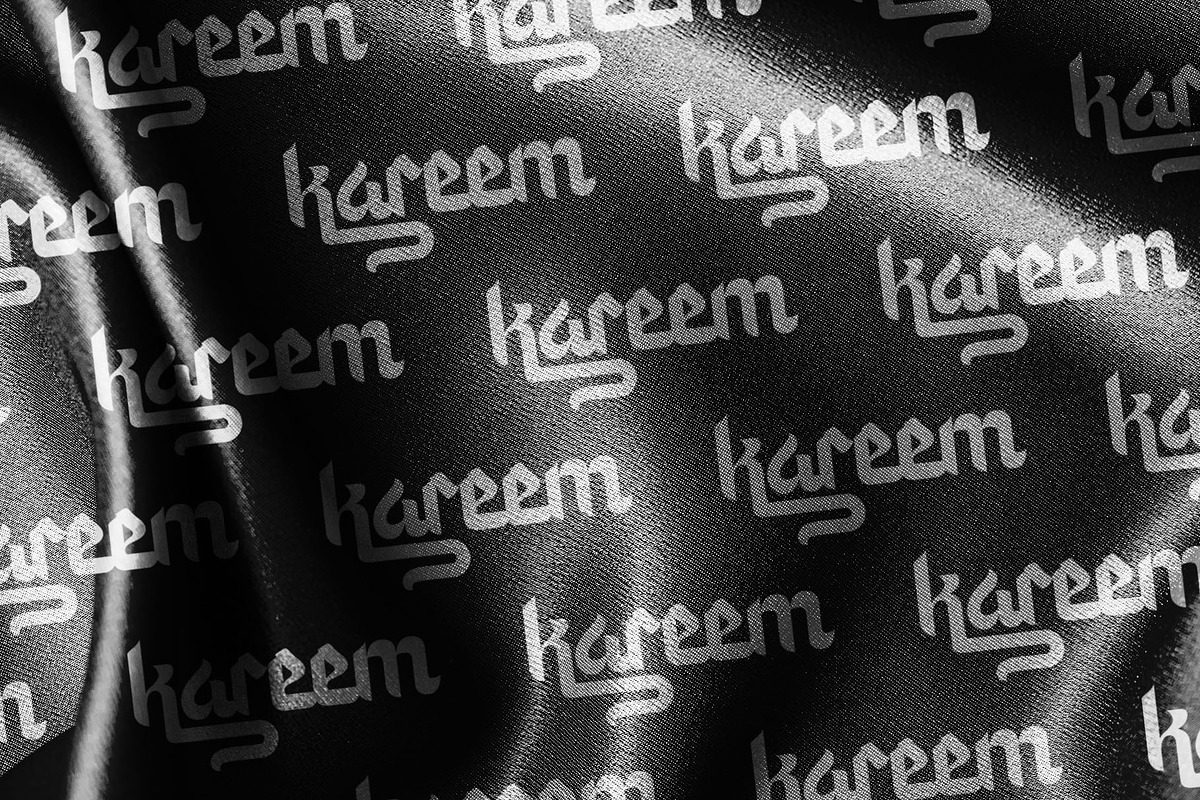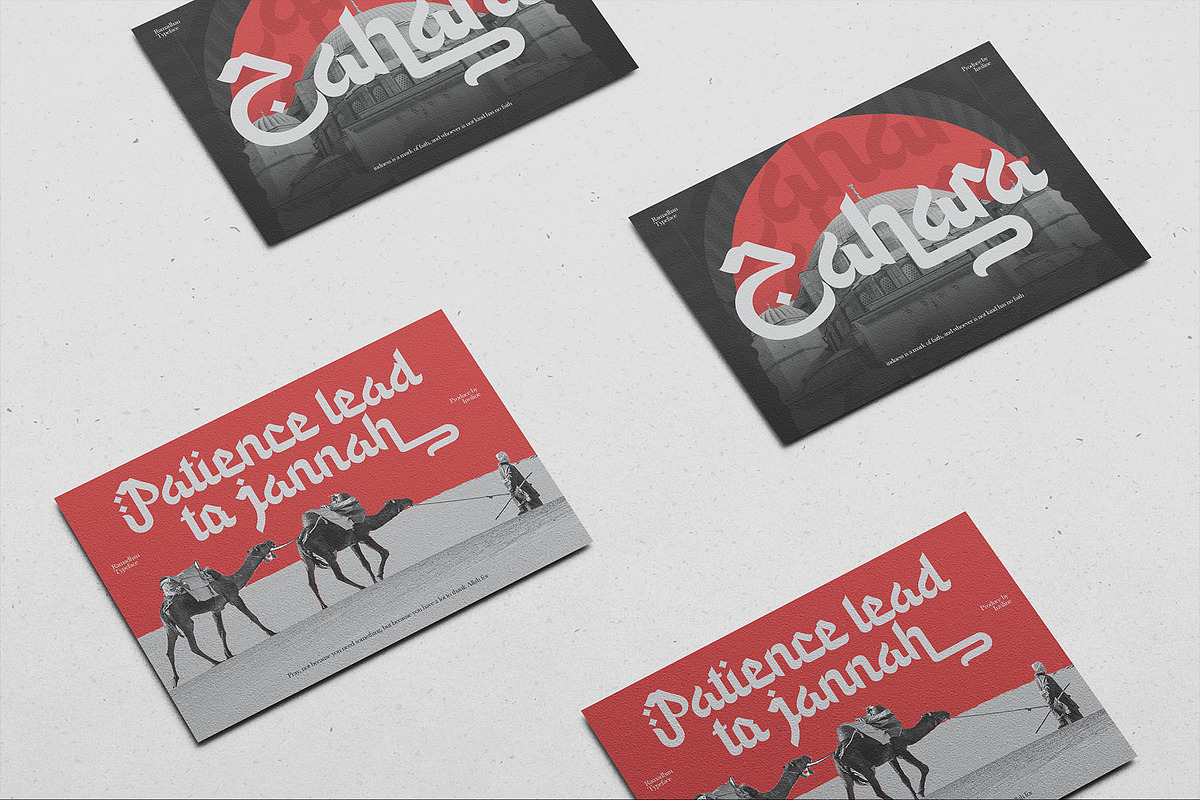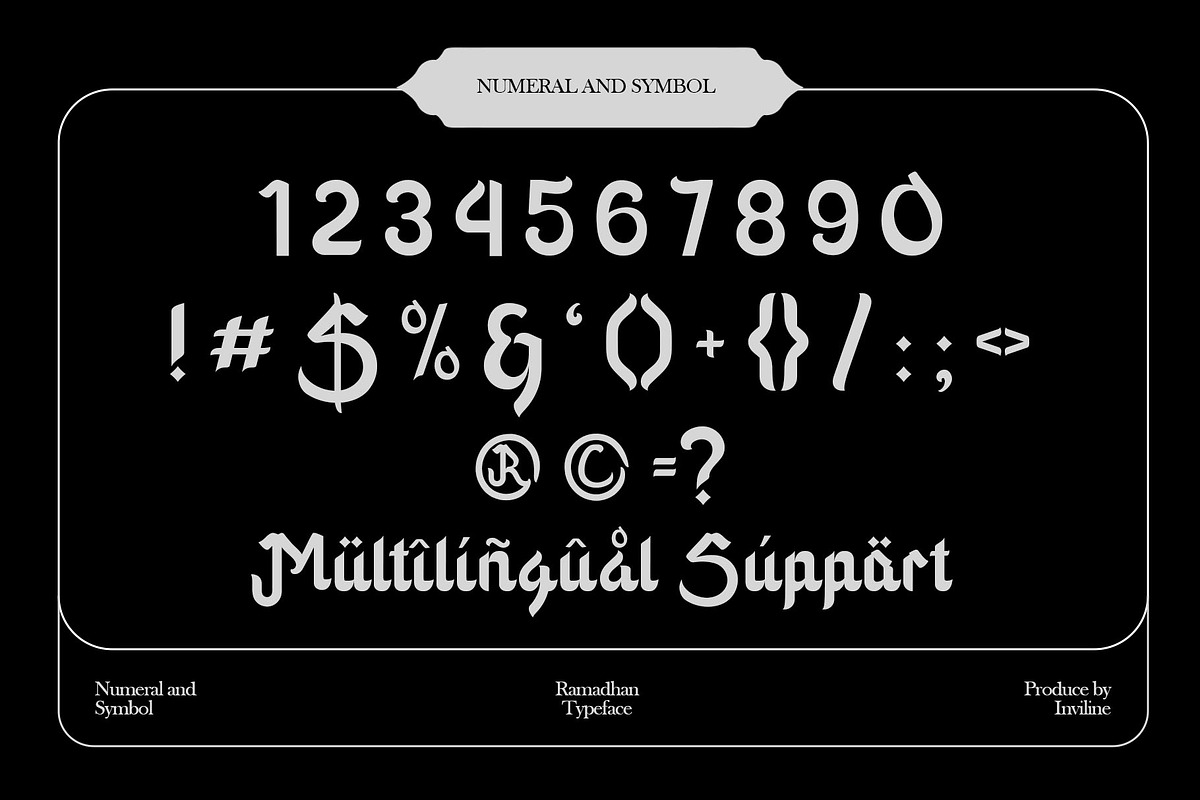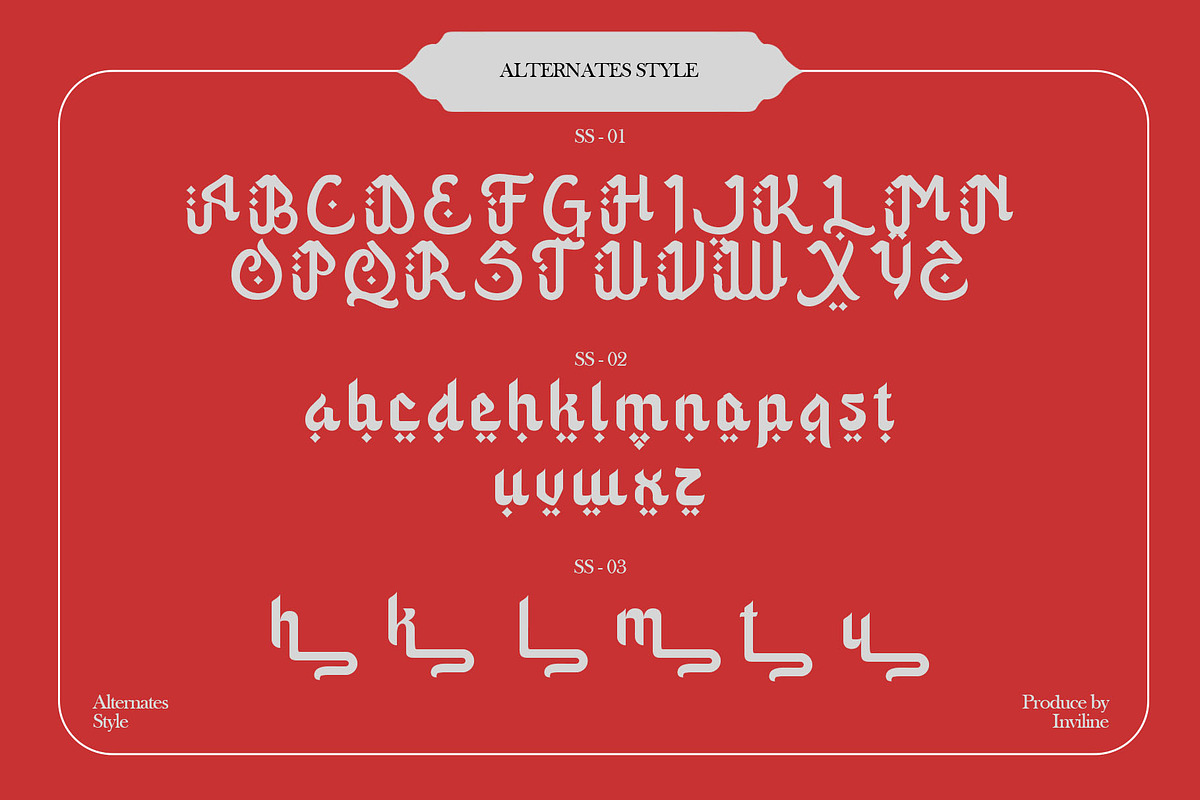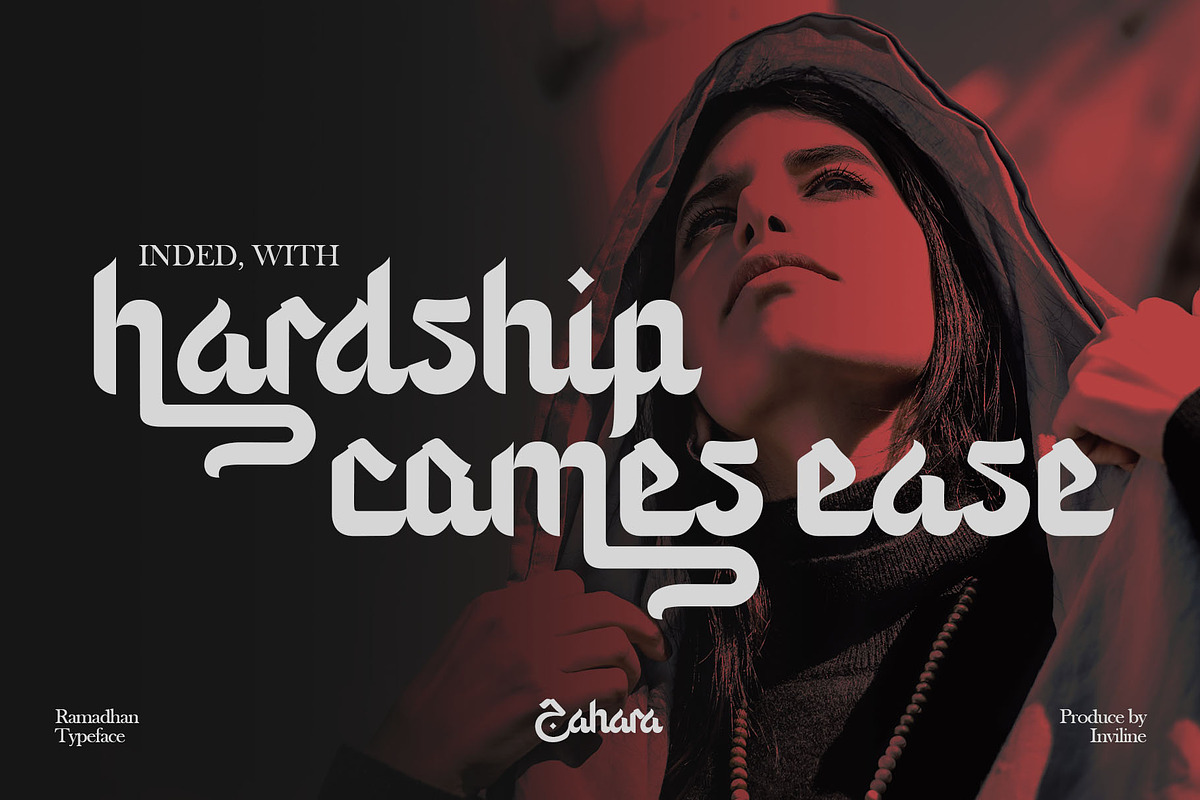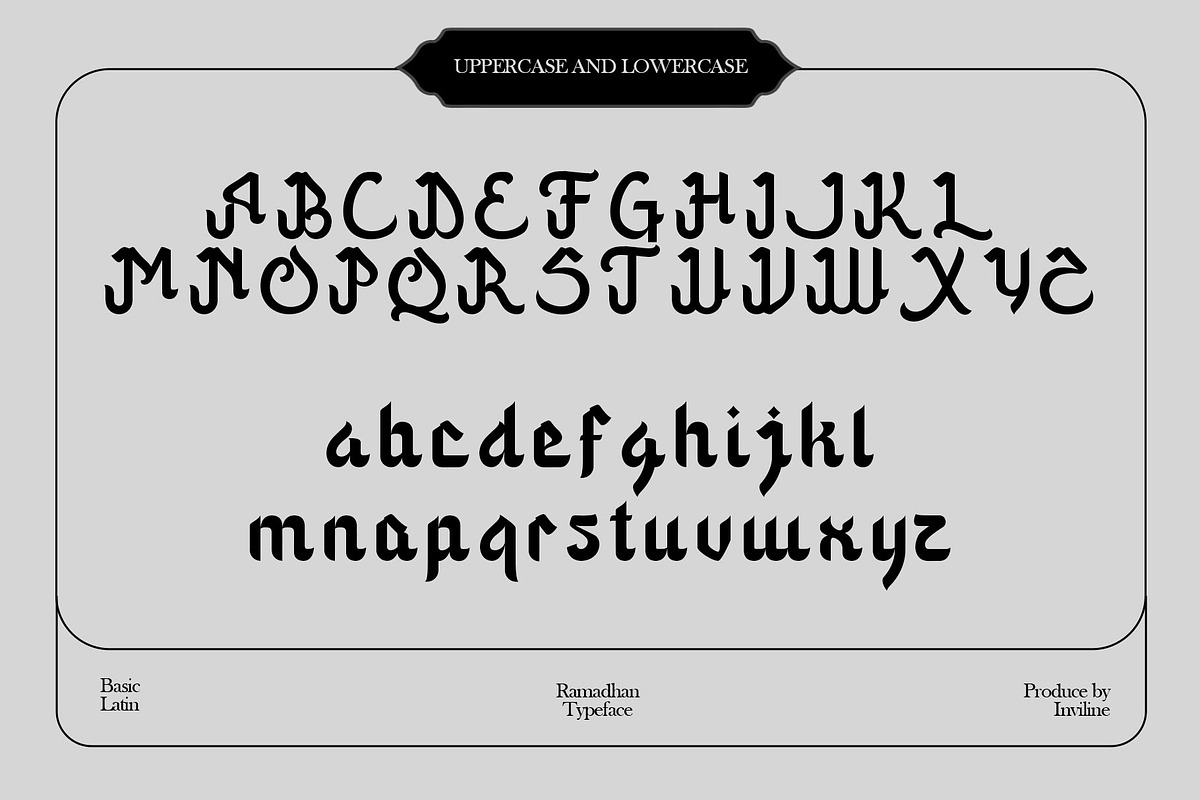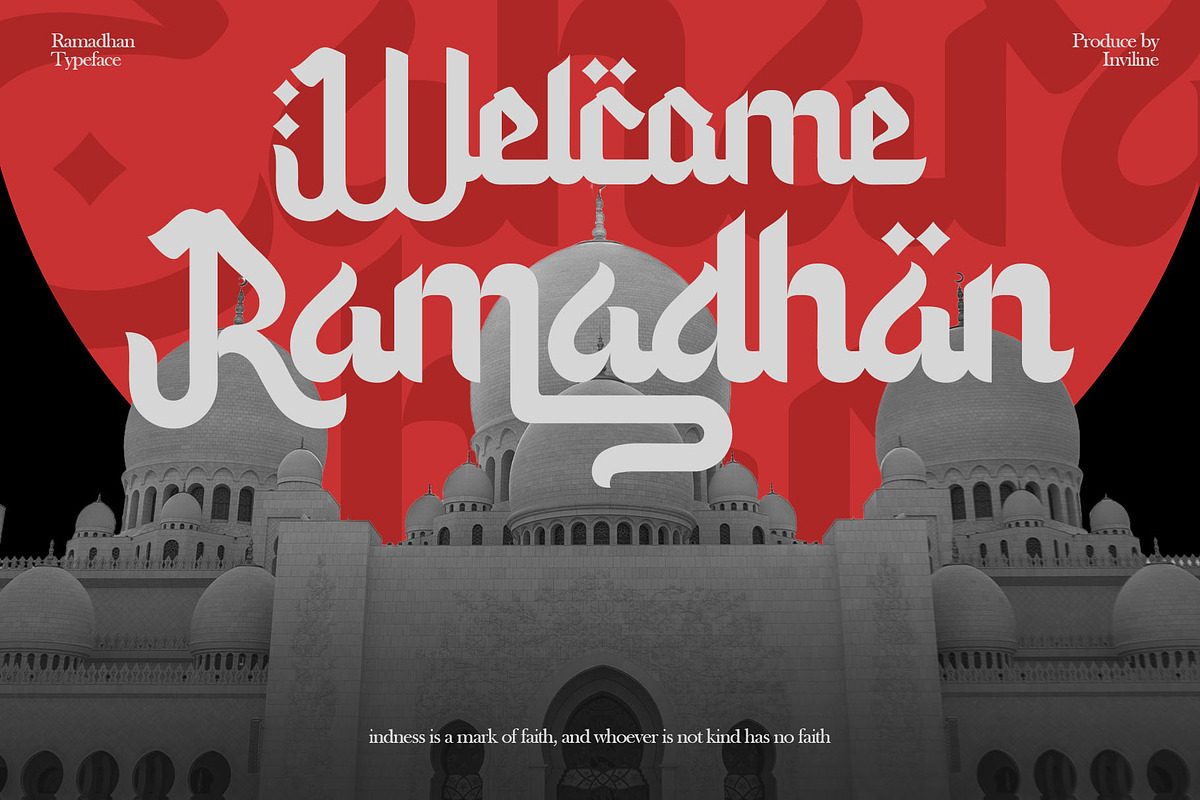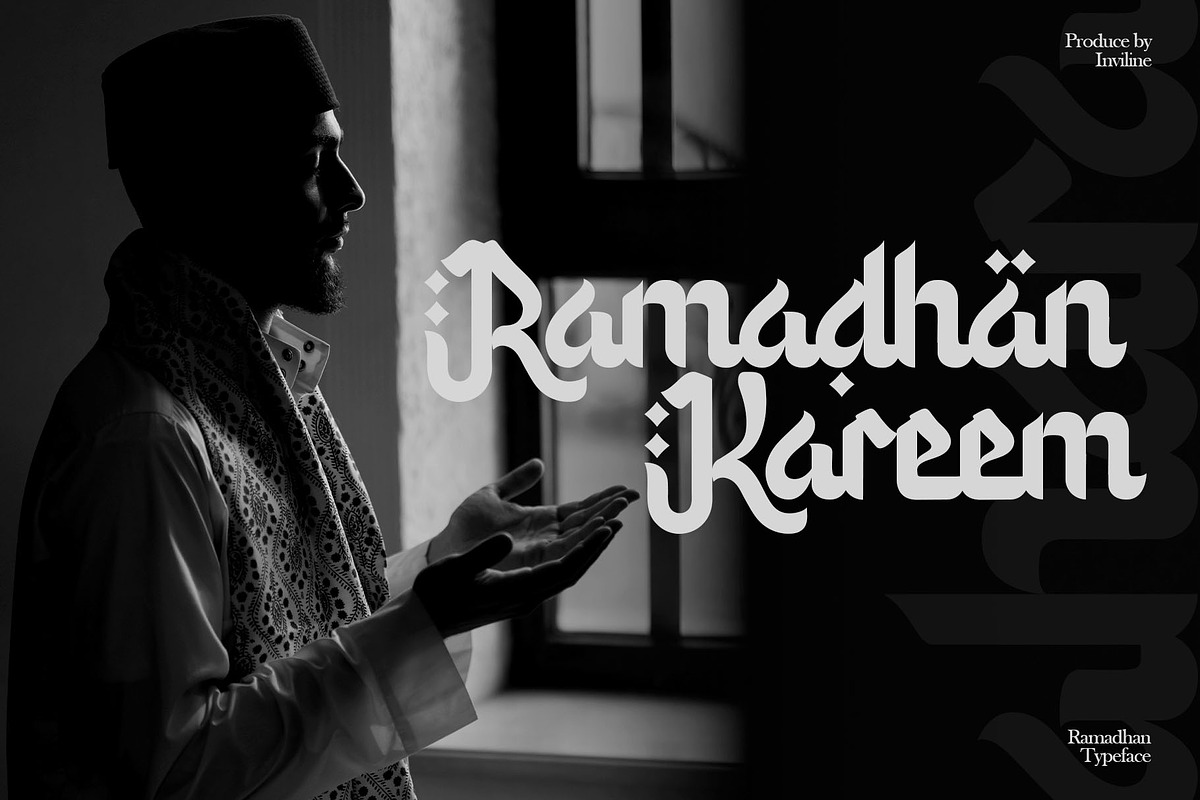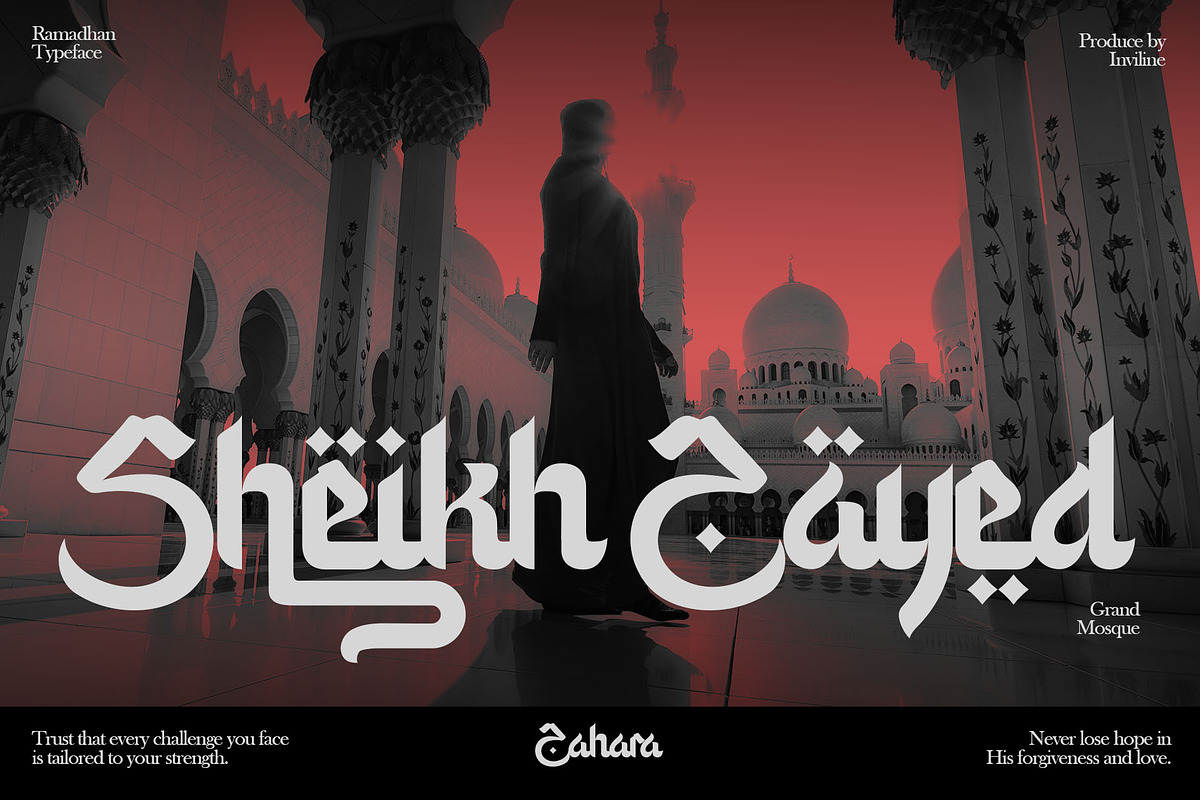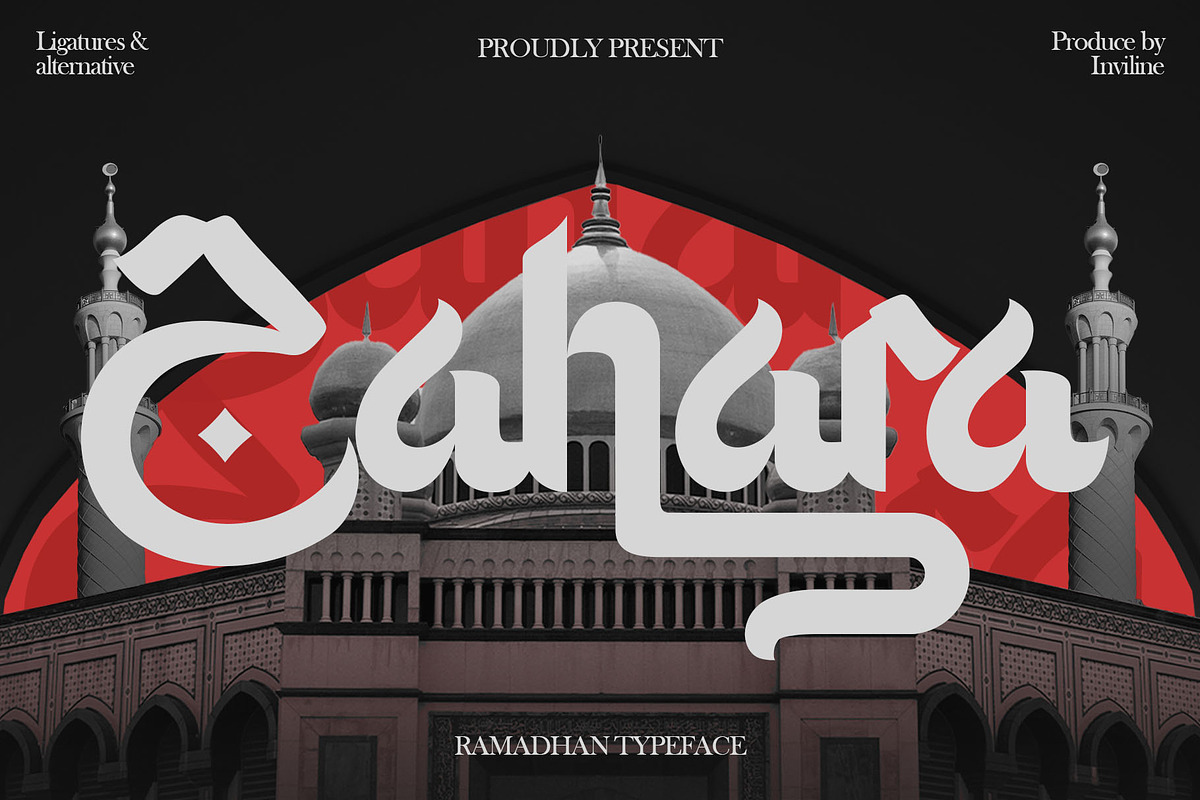
Zahara - Majestic Arabic Calligraphy
Zahara - Majestic Arabic Calligraphy Display
Introducing Zahara, a stunning display typeface inspired by the beautiful curves and historical presence of Arabic calligraphy, designed specifically for seasonal events like Ramadhan and Eid. This versatile font comes equipped with a comprehensive set of unique ligatures and stylistic alternates, allowing for truly customized and elegant layouts. Utilize this bold, culturally rich font to elevate your branding projects, greeting cards, product packaging, and editorial headlines requiring a distinguished aesthetic.
- Uppercase & Lowercase Characters: Fully designed for a complete typographic experience
- Numerals & Punctuation: All the numbers and punctuation marks you need for any design task
- Multilingual Support: Includes characters for multiple languages, ensuring global usability